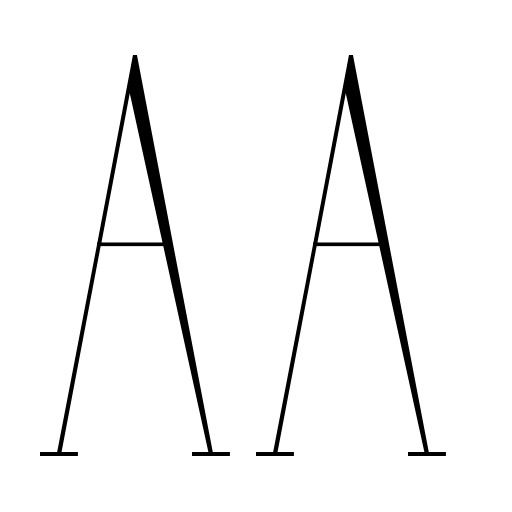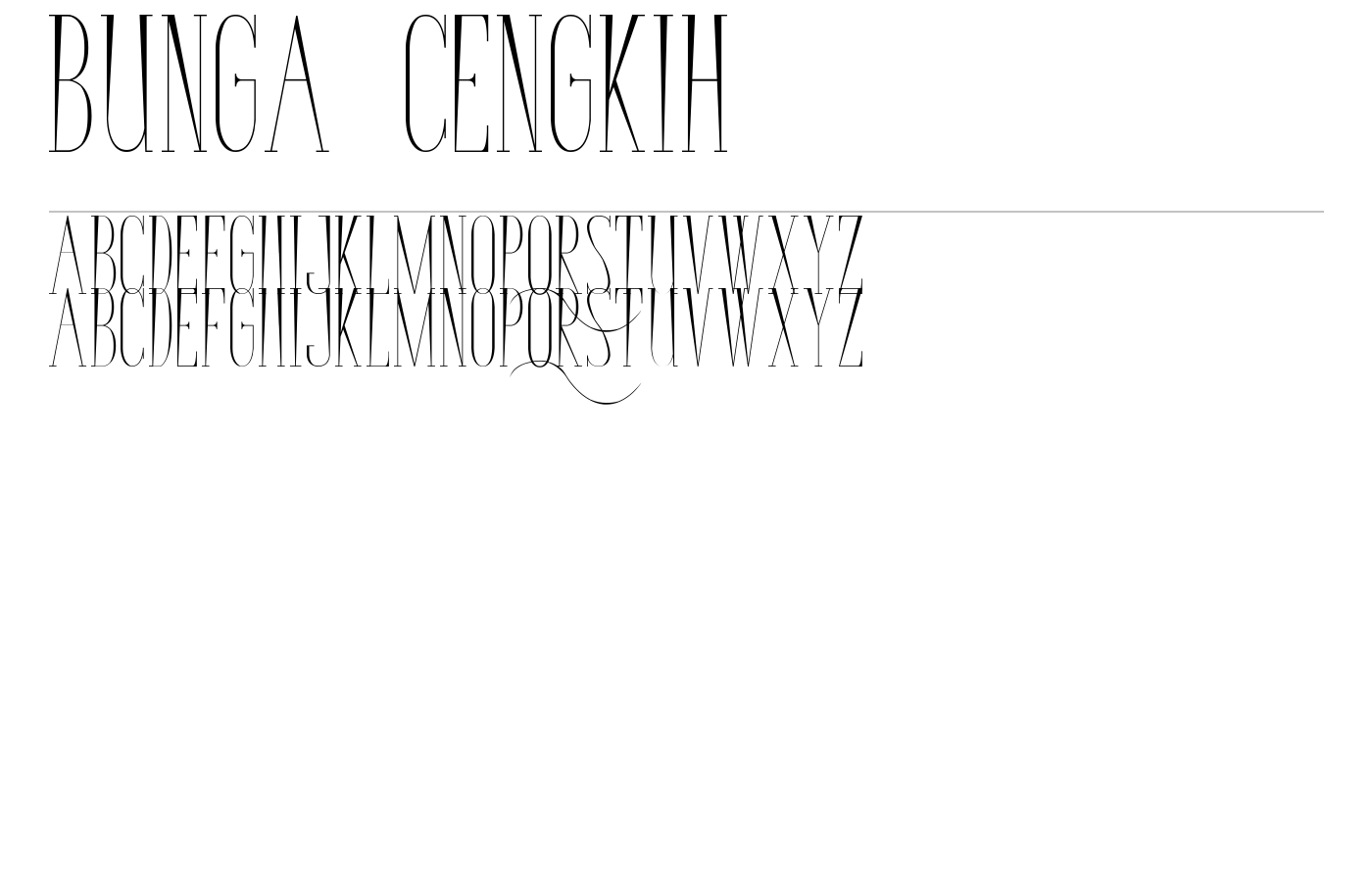
Bunga Cengkih is a delicate, ultra-condensed serif font with a high contrast between its thin and thick strokes, giving it a refined and elegant look. Its tall, narrow letterforms and subtle decorative swashes convey a sophisticated, vintage-inspired style, making it ideal for luxury branding, fashion editorials, and elegant headlines where a touch of classic charm is desired.
Bunga Cengkih Font
About Bunga Cengkih Font